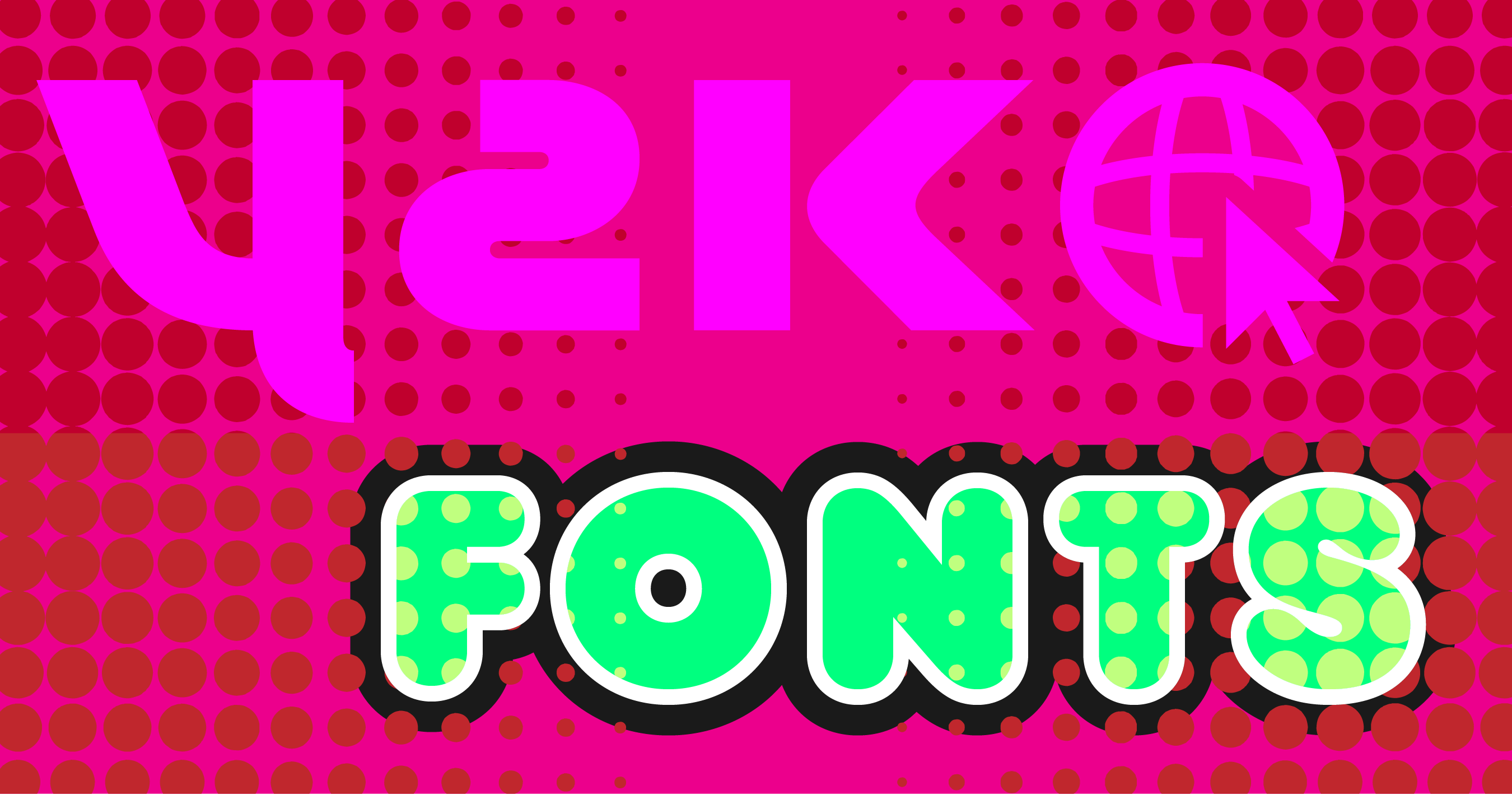
Y2K fonts are a key design element of the Y2K aesthetic, which emerged during the late 1990s and early 2000s. These fonts are characterized by their bold, blocky designs with sharp angles and geometric shapes, giving them a futuristic feel.
The Y2K aesthetic has experienced a rise in popularity in recent years, with many graphic designers incorporating Y2K elements into their work.
1. Lace font in Black font weight, lowercase letters
Handwritten type has always been on trend. To add a Y2K feel to any design, simply pick the boldest font weight and consider changing your title to all lowercase or uppercase letters to reflect “internet spelling” of the 2000s. Get Lace Black here.
Any deep pink / magenta colors are perfect, especially when paired with neon or bright greens. Sprinkle on a few hearts or stars—flat and 3d designs are both a great match.
2. Sway font in bolder font weights & uppercase letters
Let’s stick with the bright green color palette and keep a little pink but add a medium blue for this next Y2K design. The Sway typeface is super futuristic in both upper and lowercase letters. These wavy headlines might be hard to read but that’s part of the millennial aesthetic. The diagonals of the letter stems are in the same angle so that words and logotypes look geometric and just Y2K cool. If you like, frame your design with a thick border with rounded corners and add early-stage internet icons using the smiley faces, globes, and arrows.
3. Skay Black in uppercase letters with outlines
Is there a time when a bubble font is not the right type? Yes, there is! But not when it comes to the late 90s. Make the type bold (like Skay Black), add a border or two and use high-contrast color palettes, such as blacks and pinks. Halftone patterns or graffiti swooshes—grungy is the way to go when putting together Y2K designs.
4. Loco, bubble font in uppercase letters
Another bubble font that works well for millennial graphics is the Loco typeface. It comes with highlights to give an even stronger 3d effect. Loco reminds us of fun times with twisted balloons, especially when you add a thicker border to your title. This color palette using yellow, pink, and black is bright and retro at the same time.
5. Goji font in Black font weight lowercase
Another rounded typeface is Goji, a more laid-back version than the Loco type. Goji looks great in outline-only style, set in all caps.
The need for speed & digitization
Y2K fonts are a unique blend of retro and futuristic styles. Rounded caps and corners, shifted letter bowls, wavy line type in all lowercase and uppercase letters are common font traits.
Ink, pixel, and graffiti styles, font outlines and slanted type—everything got decorated with stars, sparkles and swooshes, popular design elements during the turn of the millennium.
If that’s enough, think of a cyber techno aesthetic embedded in a bold frame and sprinkled with hearts.
Color palettes that pop louder than fireworks
Y2K color palettes were bold! Neon, black, pinks, metals—think of any color that comes out of a graffiti spray can and you’re all set. A glossy, glittery barbie doll color style works well for Y2K palettes too.